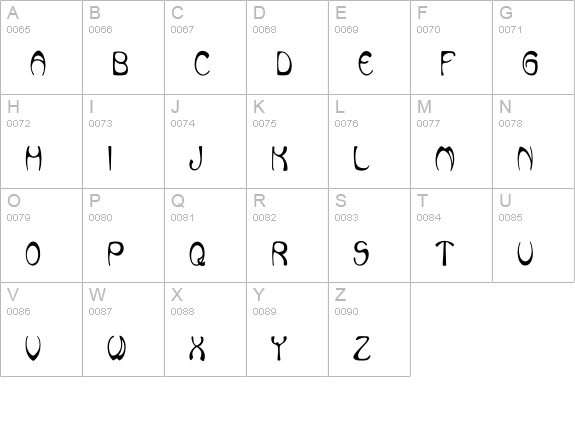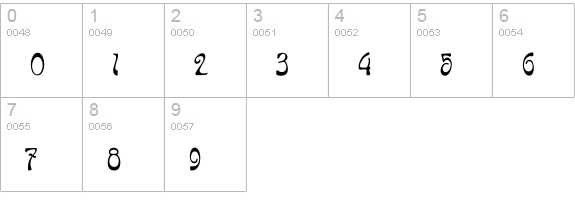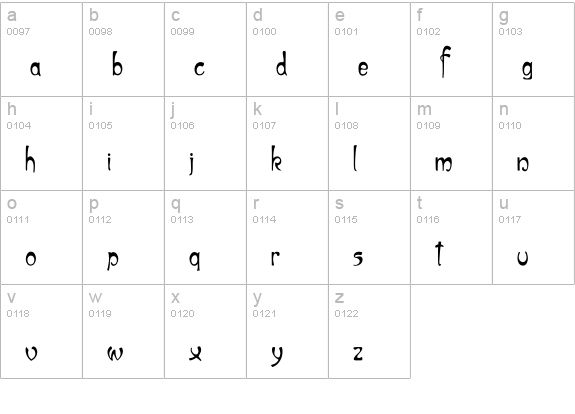
P22 Art Nouveau Cafe Font Details
The P22 Art Nouveau Cafe font is a stunning typographic masterpiece that captures the essence of the Art Nouveau movement. With its intricate and delicate letterforms, this font exudes elegance and sophistication. Inspired by the decorative arts of the late 19th and early 20th centuries, P22 Art Nouveau Cafe features flowing lines, floral motifs, and ornamental details that transport you to a bygone era of artistic expression. Its graceful curves and elaborate embellishments make it the perfect choice for projects that require a touch of vintage charm and timeless beauty. What sets P22 Art Nouveau Cafe apart is that it is not only aesthetically pleasing but also freely available to download at FontsMarket.com. This means that designers and enthusiasts alike can access this captivating font without any cost. Its availability at FontsMarket.com allows for easy access and ensures that anyone can incorporate the charm of Art Nouveau into their designs. Whether you're working on a poster, invitation, logo, or any other creative endeavor, P22 Art Nouveau Cafe will elevate your design to new heights. Its versatility and attention to detail make it suitable for a wide range of applications, from elegant branding to nostalgic book covers. Add a touch of Art Nouveau flair to your next project with the P22 Art Nouveau Cafe font. Download it for free at FontsMarket.com and let its timeless beauty inspire your creativity.